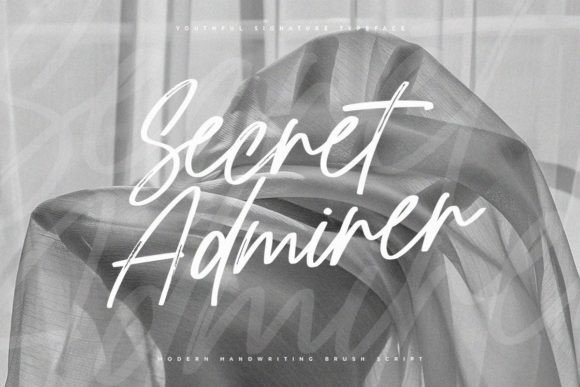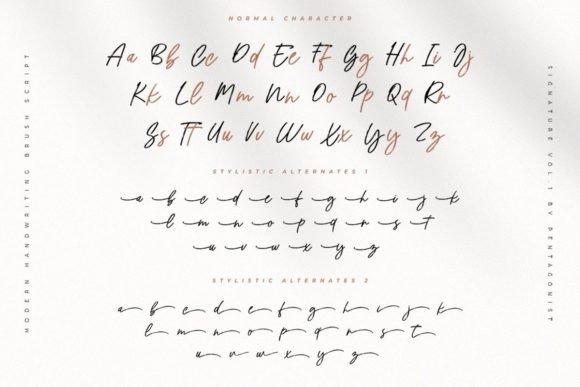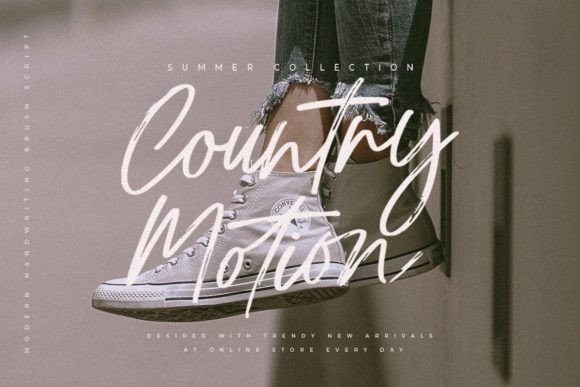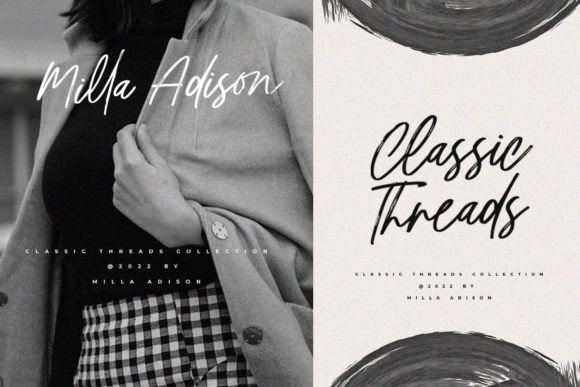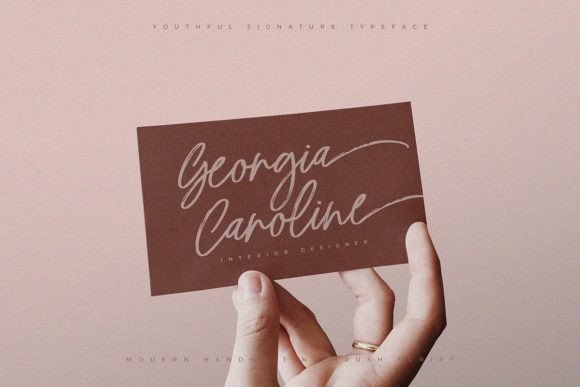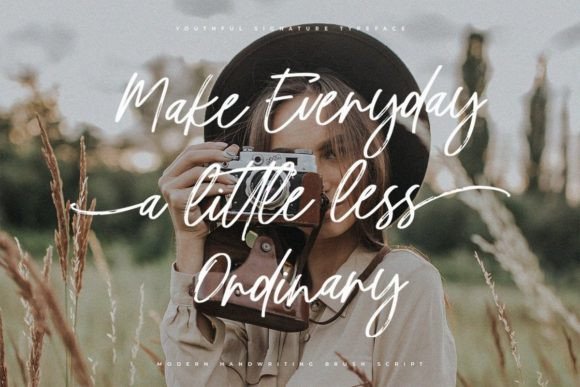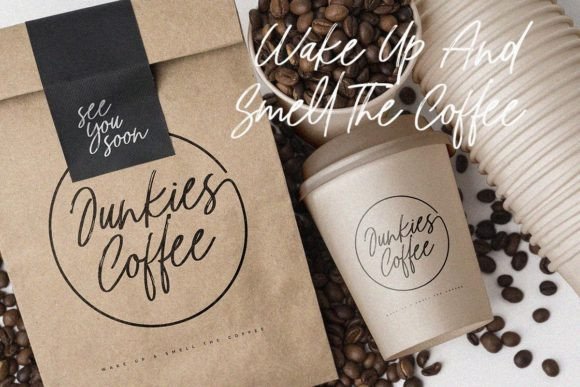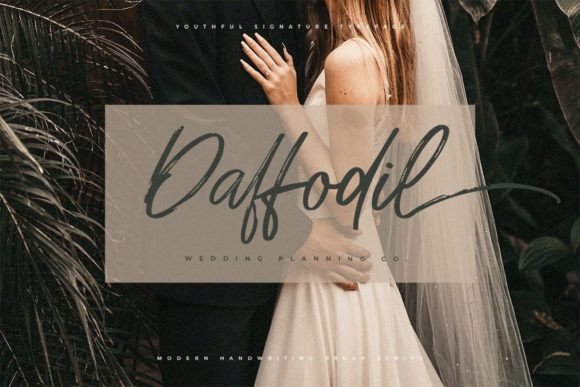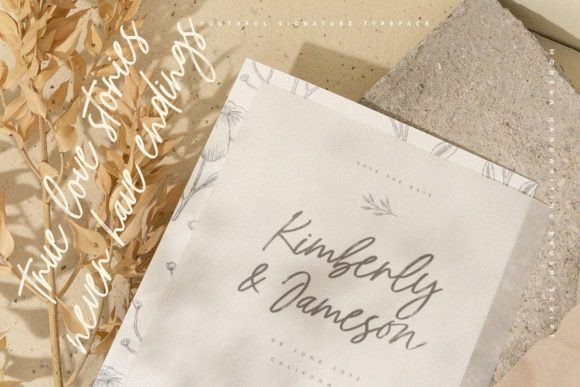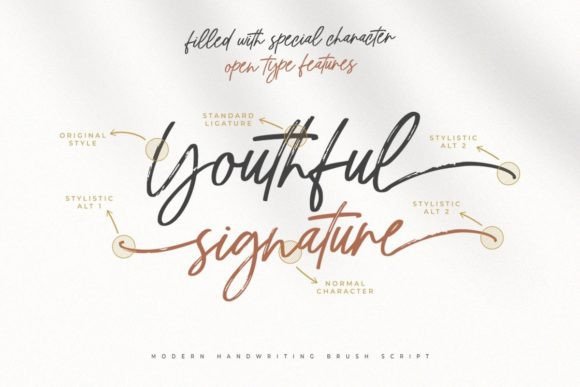
Youthful Font
Youthful, a cursive handwritten signature script font, embodies a delightful charm that gracefully enhances a myriad of design projects. This font is not just a typographic choice; it’s a stylistic expression that seamlessly blends sweetness with a touch of sophistication.
In the realm of branding, Youthful stands out as a versatile and enchanting option. Its cursive strokes lend a personal touch, creating a connection with the audience. Whether used in logos or as part of a broader branding strategy, Youthful imparts a sense of joy and approachability, making it a perfect choice for brands that wish to convey a friendly and inviting demeanor.
For wedding-related designs, Youthful brings an extra layer of romance and elegance. Its handwritten signature style adds a personalized feel to invitations, place cards, and other wedding stationery. The font’s gentle curves and flowing lines evoke a sense of celebration, making it an ideal companion for capturing the sentiment of love and joy on such special occasions.
In the realm of fashion, Youthful becomes a key player, seamlessly integrating with lookbooks, promotional materials, and marketing campaigns. Its casual yet elegant demeanor aligns perfectly with the dynamic and ever-evolving world of fashion, contributing to a visual language that is both trendy and timeless.
Greeting cards, another domain where Youthful shines, benefit from its ability to convey emotion and sentiment. The font’s joyful and romantic touch transforms ordinary messages into heartfelt expressions, creating a lasting impact on the recipient.
Marketing promotions across various platforms, from social media to print materials, find a charismatic companion in Youthful. Its fancy yet casual appearance strikes a balance that appeals to a wide audience, making it an effective choice for conveying messages with flair and authenticity.
In essence, Youthful is more than a font; it’s a design asset that elevates and transforms. With its ability to infuse joy, romance, and sophistication into diverse projects, Youthful becomes a go-to choice for designers seeking a versatile and captivating script font. Whether it’s a logo, wedding invitation, fashion campaign, or a heartfelt greeting card, Youthful effortlessly adds that special touch of charm and elegance.